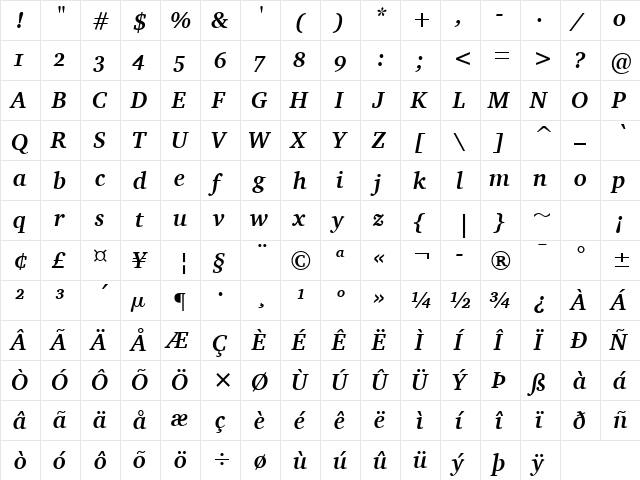
Charter Bd OS ITC TT BoldItalic Font Preview
Design Context for Charter Bd OS ITC TT Typeface
Charter Bd OS ITC TT takes a measured approach to typography — its balanced proportions and neutral character make it a reliable workhorse for both digital and print work. The dynamic lean of this cut emphasises speed and emphasis in any layout. The heavy weight commands attention and anchors typographic hierarchies.
Pro Tip: Try Charter Bd OS ITC TT for annotation and caption copy alongside an upright companion — the contrast in angle creates a dynamic but ordered typographic system.